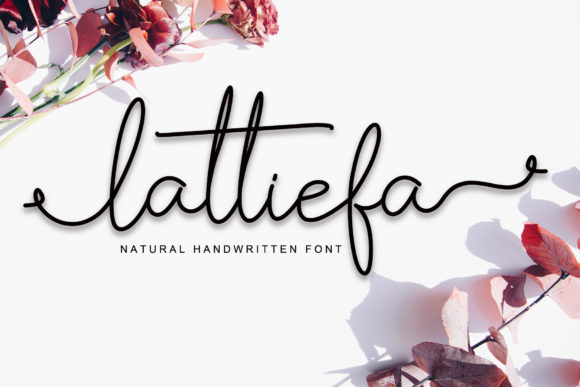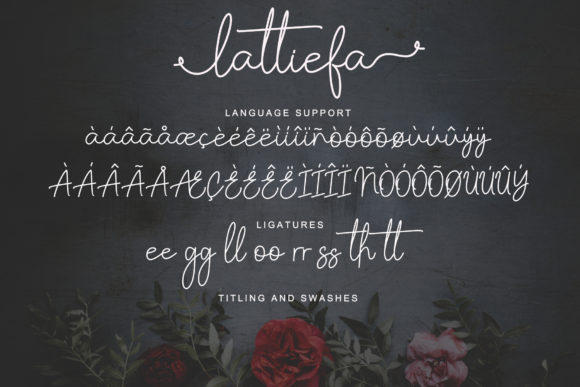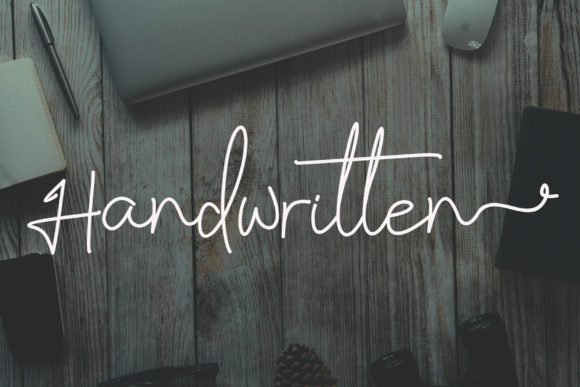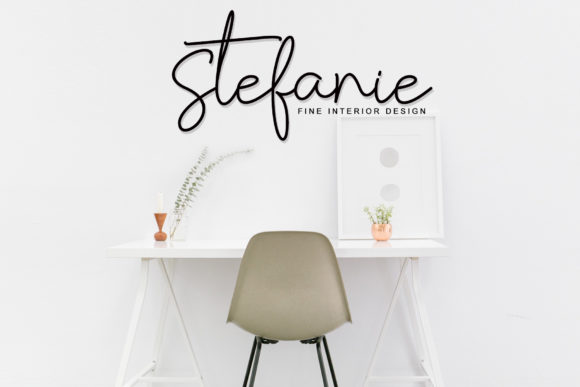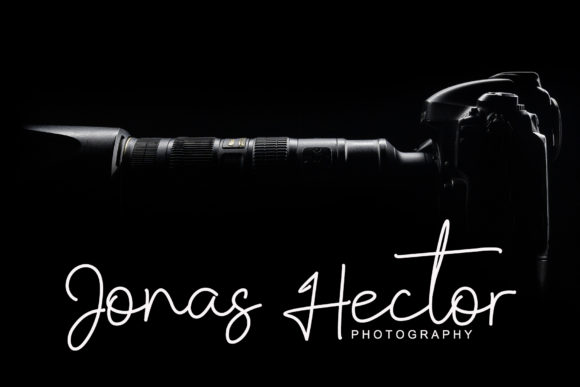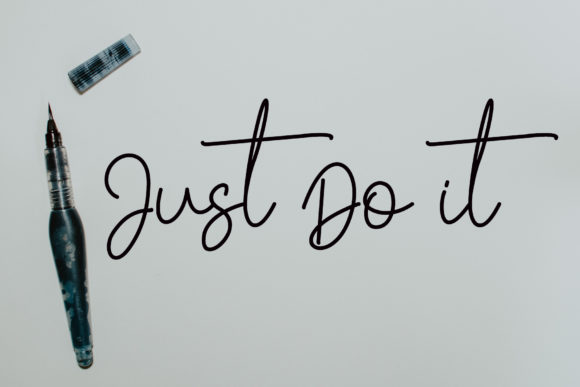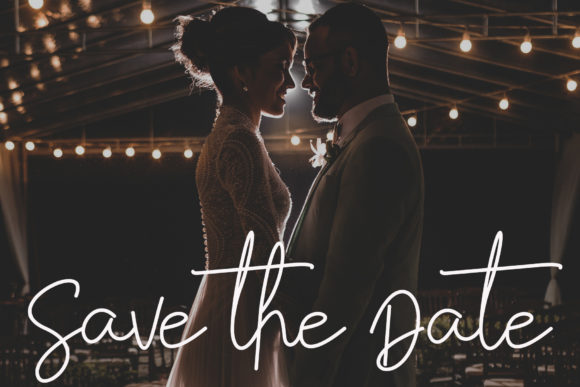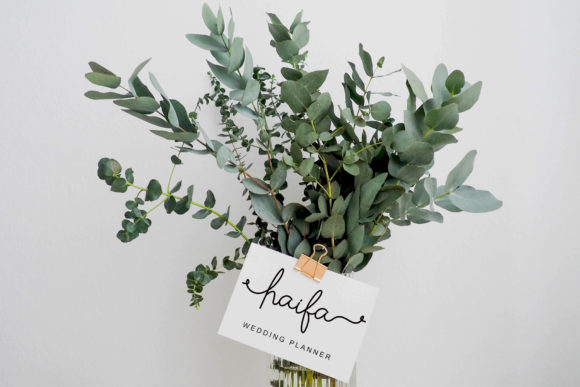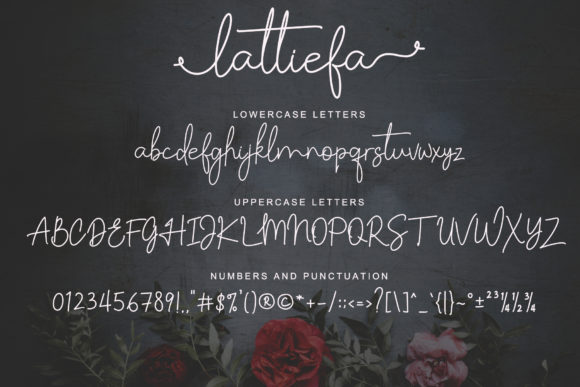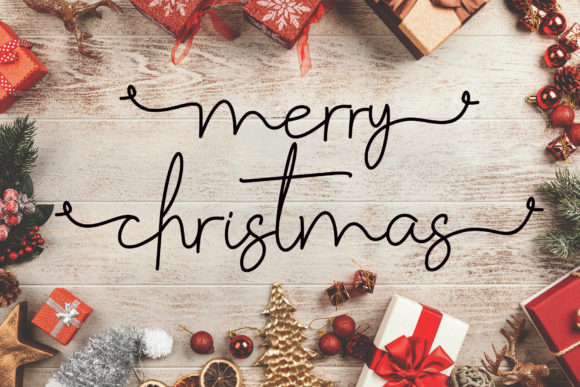
Lattiefa Font
About Lattiefa Font
Lattiefa is an elegant script font. It has beautiful swashes and ligatures and it’s perfect for logos, wedding invitations, social media posts, signatures and much more!